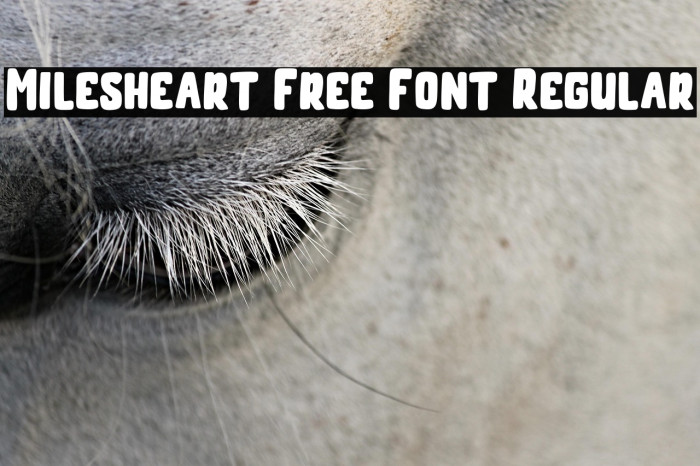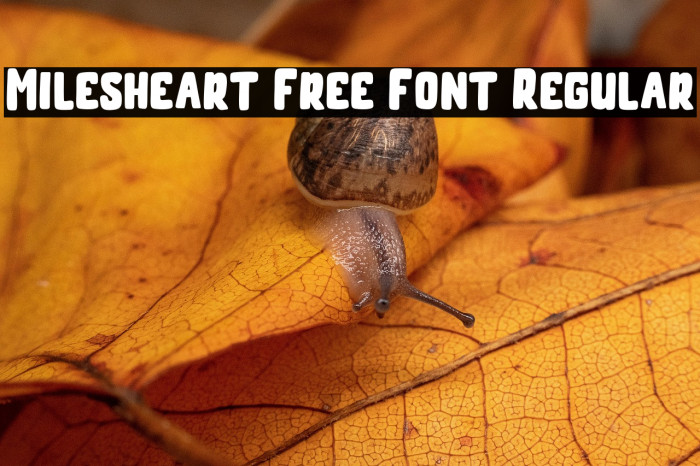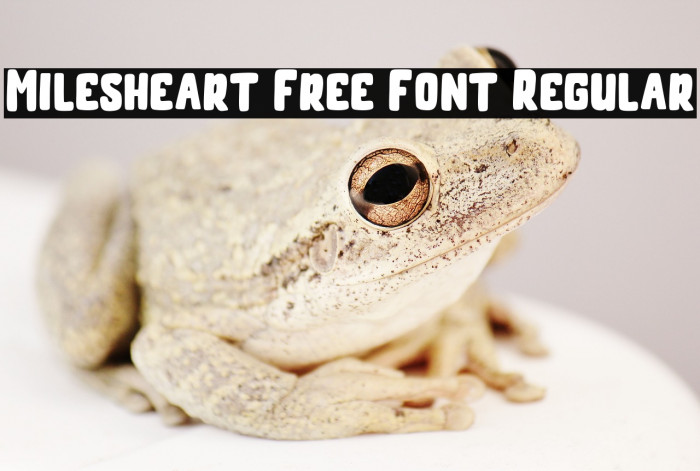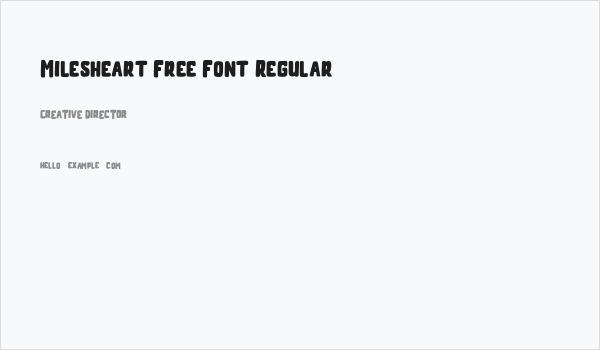
Milesheart Free Font Regular Font
Milesheart Free Font Regular Description
This font features a bold and playful design with rounded edges, giving it a friendly and approachable appearance. The characters are uniformly thick, providing a consistent and solid look across all letters. The uppercase letters are prominent and slightly condensed, which enhances readability while maintaining a unique style. The font exudes a casual and informal vibe, making it suitable for projects that aim to convey warmth and friendliness. Its simplicity and boldness make it stand out, yet it remains easy to read, even at smaller sizes.
| Proposed Projects | Ideal for children's books, playful branding, casual invitations, and social media graphics. |